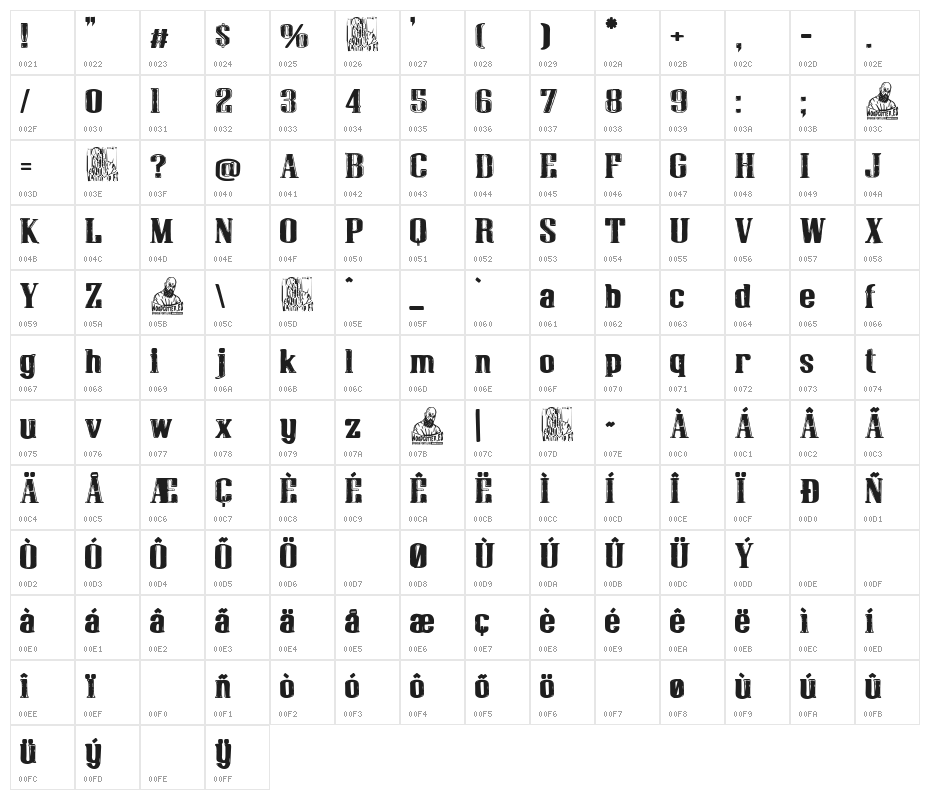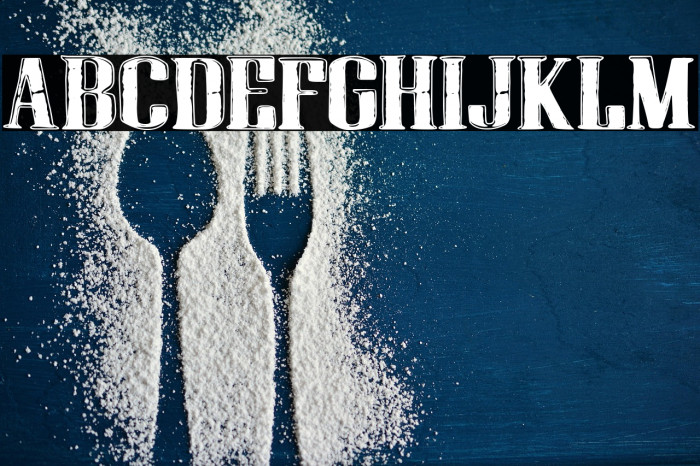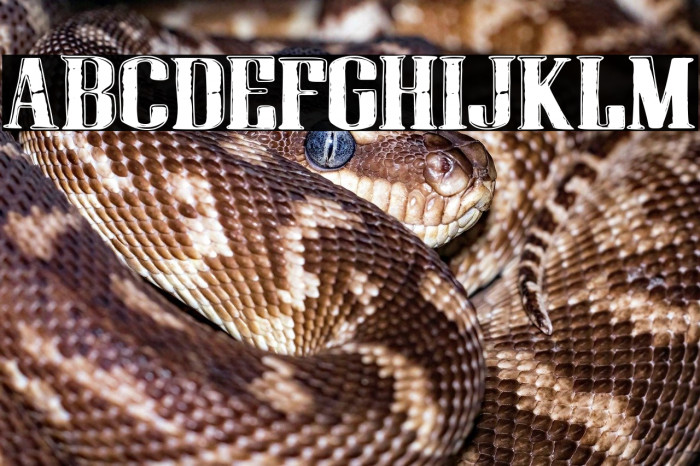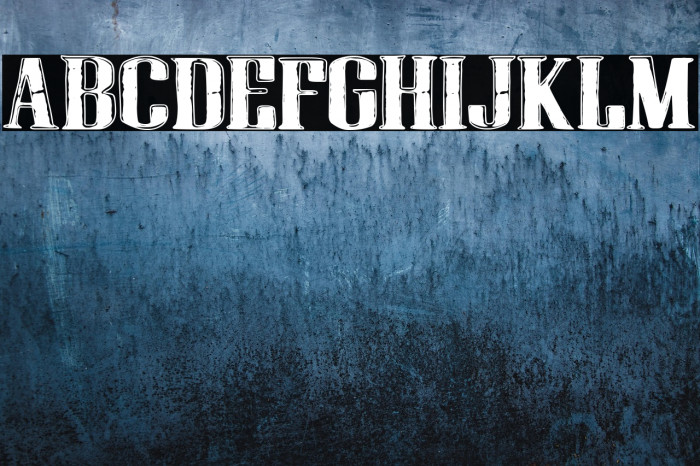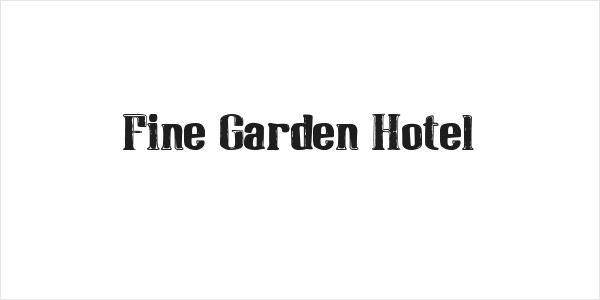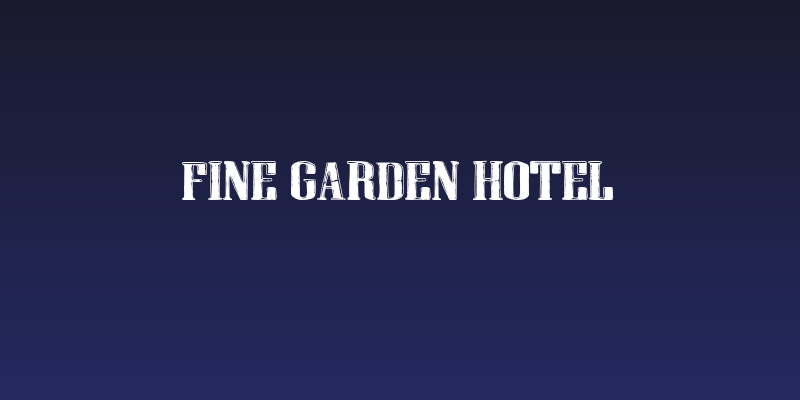
Fine Garden Hotel Font
Fine Garden Hotel Description
This font exhibits a bold and rugged style with a distressed texture that gives it a vintage and rustic appearance. The uppercase and lowercase letters are designed with thick strokes and slightly uneven edges, adding to its handcrafted feel. The numbers and special characters maintain this distressed look, ensuring consistency across all glyphs. The font's unique style makes it stand out, with a strong presence that captures attention. Its decorative nature is enhanced by the bold weight and the medium contrast in stroke thickness, which adds depth and character to the text.
| Proposed Projects | Ideal for vintage-themed posters, rustic branding, or any project requiring a bold, eye-catching display font. |